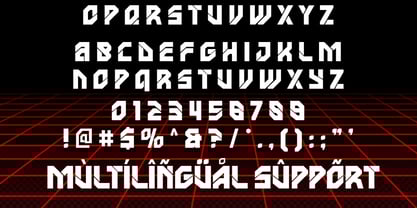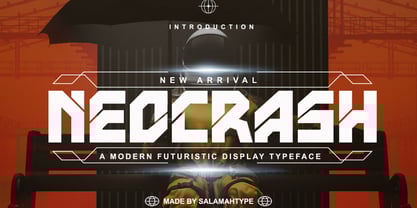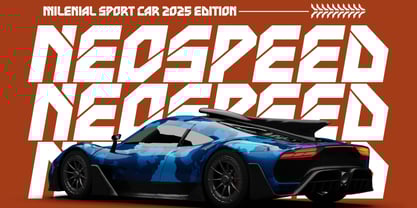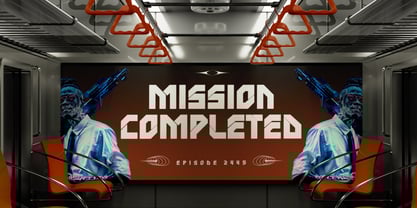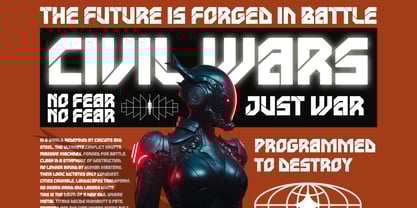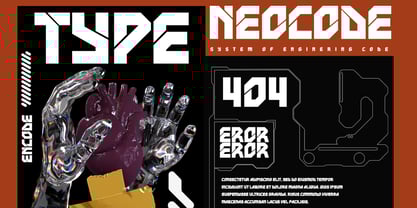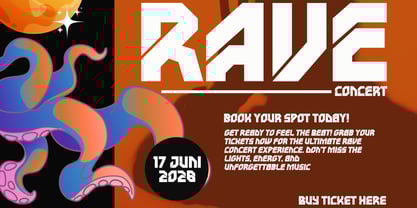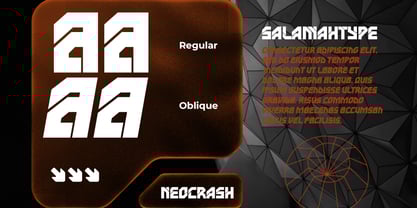
Neocrash
by Salamahtype
The Neocrash Font Family was designed by Aswangga Sadike and published by Salamahtype. Neocrash contains 2 styles and family package options.
Neocrash is a cutting edge cyberpunk futuristic font designed to bring a high-tech, digital vibe to your creative projects. With a sleek and bold appearance, it’s perfect for sci-fi posters, gaming titles, tech branding, and modern UI design.
This font includes:
• Uppercase & Lowercase letters
• Multilingual support
• Regular & Oblique styles
Make your designs stand out with the futuristic edge of Neocrash.